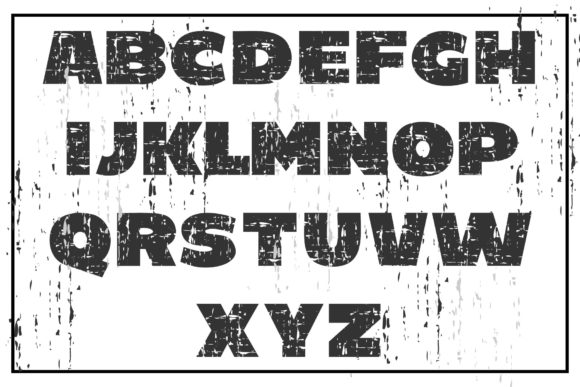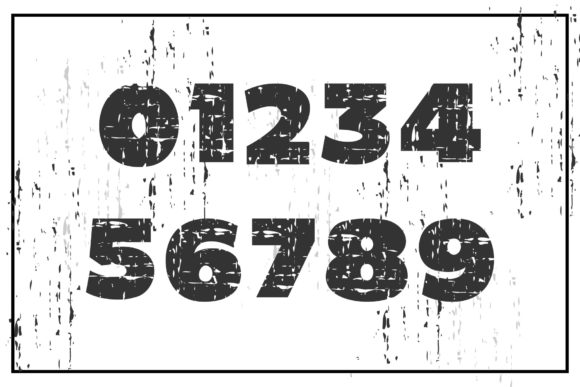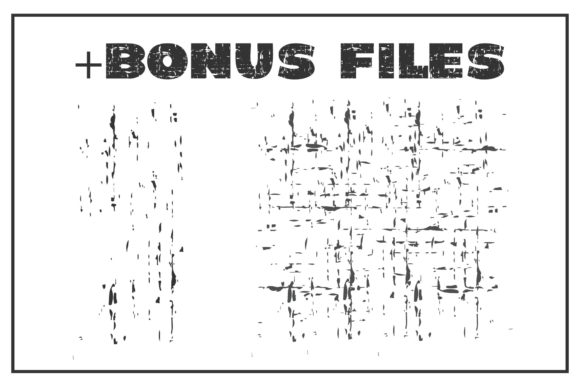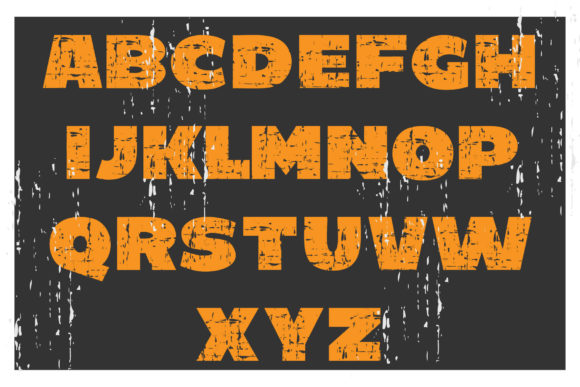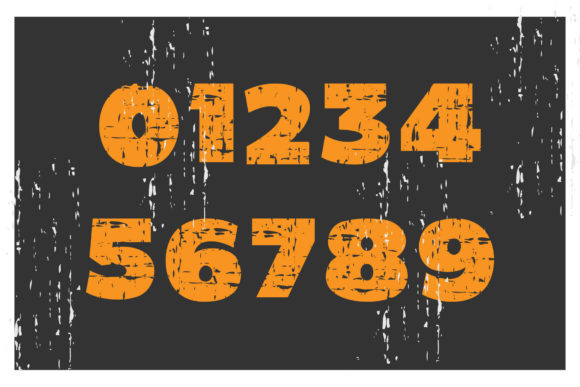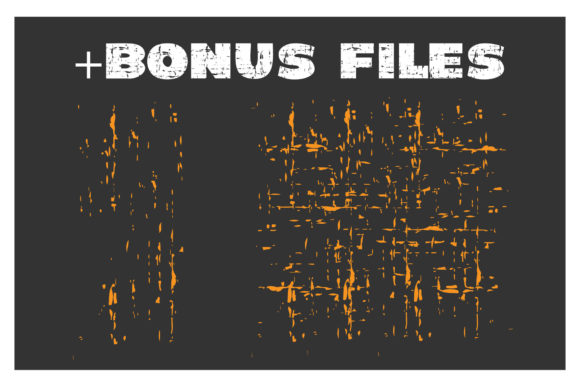
Introduction to Grunge 90’S Font
Grunge 90’S is a great display font.
This fantastic font is best suited for headlines of all sizes, as well as for blocks of text that have both maximum and minimum variations Whether it’s for web, print, moving images, or anything else – Grunge Splash will look spectacular.
Key Features of Grunge 90’S Font
Why Choose Grunge 90’S Font?
Grunge 90’S Font offers exceptional quality and versatility, making it a valuable addition to your design toolkit. Whether you’re creating for personal projects or commercial use, Grunge 90’S Font delivers professional results.